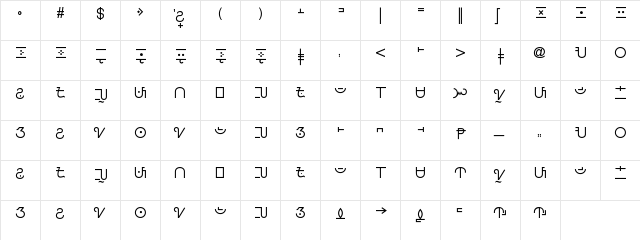
Pamagkulit Linear Regular
Pamagkulit Linear is a composed and adaptable typeface that performs quietly and consistently across a wide range of design contexts.